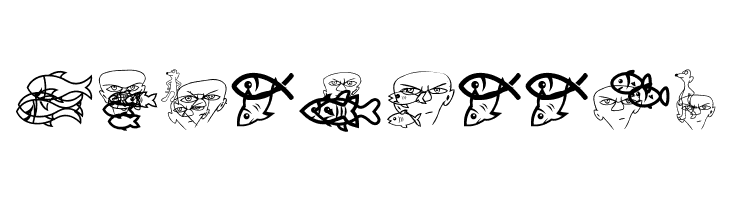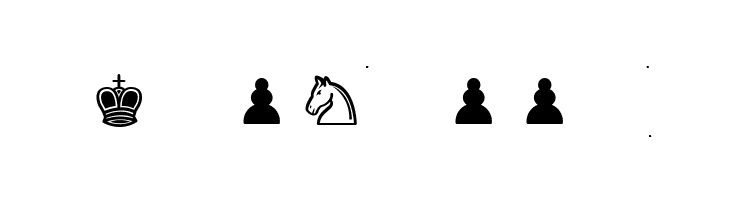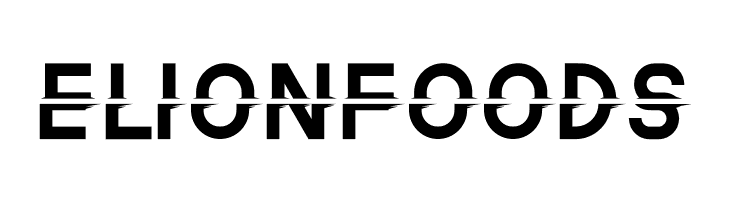
An artistic, Picasso-inspired font with abstract illustrations replacing traditional characters.
A set of chess piece symbols with bold outlines for clarity.
A collection of stylized chess piece symbols for digital and print use.
Chess-themed icon font with bold, geometric chess piece illustrations.
A bold, split-effect sans-serif font ideal for modern, eye-catching designs.